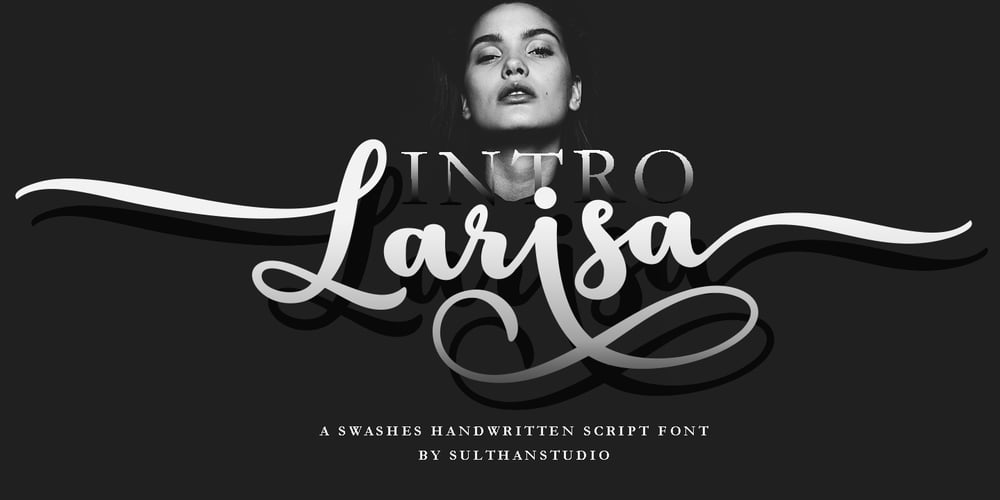
Larisa script Font Family was designed by Nasrullah and published by Sulthan Studio. Larisa script contains 1 styles and family package options. Larisa Script is a smooth, elegant, and flowing handwritten font. It has as many characters to play as you want, readable and incredibly versatile. will look outstanding in any context, whether it’s being used on busy backgrounds or as a standalone headline!Larisa Script – includes many alternative characters. Coded with Unicode PUA, which allows full access to all additional characters without having special design software. Mac users can use Font Book. Windows users can use the Character Map to view and copy one of the additional characters to paste into your favorite text editor. For people who have opentype-capable software: Alternatives can be accessed by turning on the “Alternative Style” and “Ligature” buttons on the Photoshop Character panel, or through any software with the glyph panel, e.g. Adobe Illustrator, Photoshop CC, Inkscape.